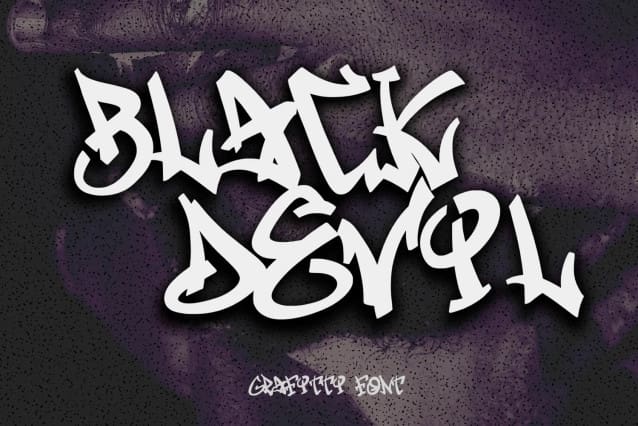
Black Devils Font
Black Devils Font, this font designed so that users can use it more easily and make graffiti designs easier. Black Devil is very suitable for use in various media such as; packaging, logos, labels, posters, shirt designs, bulletins, typography, and many other media, especially with graffiti look.